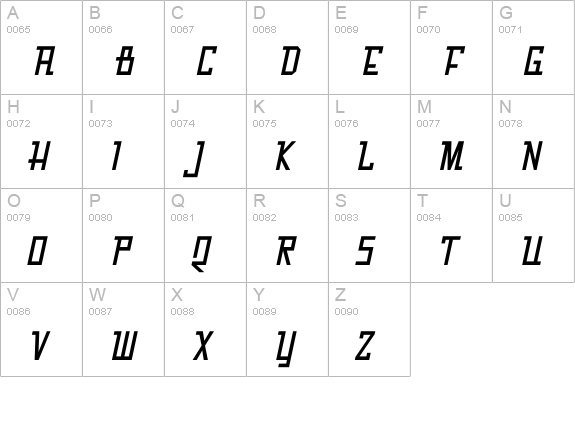
Fabian Font Details
Introducing the mesmerizing and sophisticated Fabian font, a true masterpiece in the world of typography. With its sleek and timeless design, Fabian effortlessly captures attention and adds a touch of elegance to any project it graces. This font is a testament to the creative genius of its designer, who carefully crafted each letter to perfection. The clean lines and balanced proportions of Fabian make it ideal for a wide range of applications, from print materials to digital designs. But what truly sets Fabian apart is its accessibility. This exceptional font is not only visually stunning, but it is also freely available to download at FontsMarket.com. Now, anyone can experience the beauty of Fabian without any limitations or restrictions. Whether you are a professional graphic designer looking to make a bold statement or a casual enthusiast wanting to add a touch of sophistication to your personal projects, Fabian is the perfect choice. Its versatility allows it to seamlessly blend into any design style, from modern and minimalistic to classic and ornate. With Fabian, your creativity knows no bounds. Let this extraordinary font be your guiding light as you embark on new design endeavors. Immerse yourself in the world of elegance and finesse, and discover the endless possibilities that Fabian brings to your creative journey. Don't miss out on this incredible opportunity to enhance your design arsenal with Fabian. Download this exceptional font for free at FontsMarket.com and let its captivating charm elevate your designs to new heights. Experience the beauty and freedom of Fabian font today and unlock a world of endless possibilities in your creative endeavors.